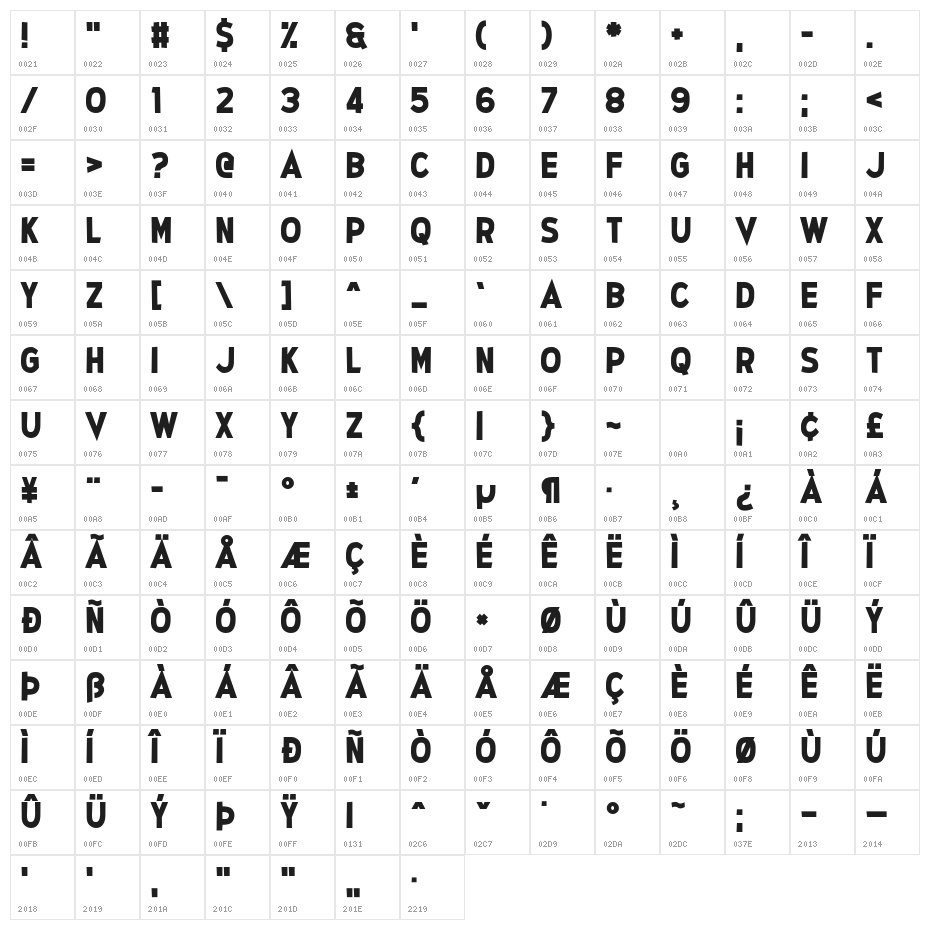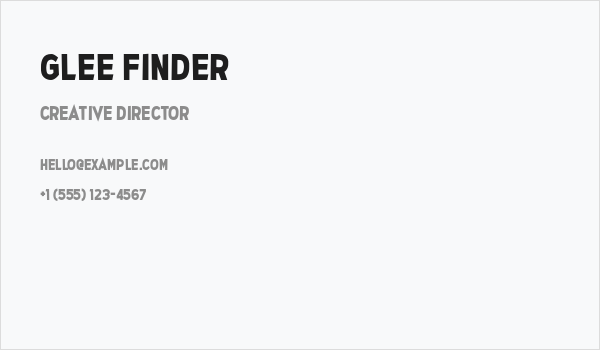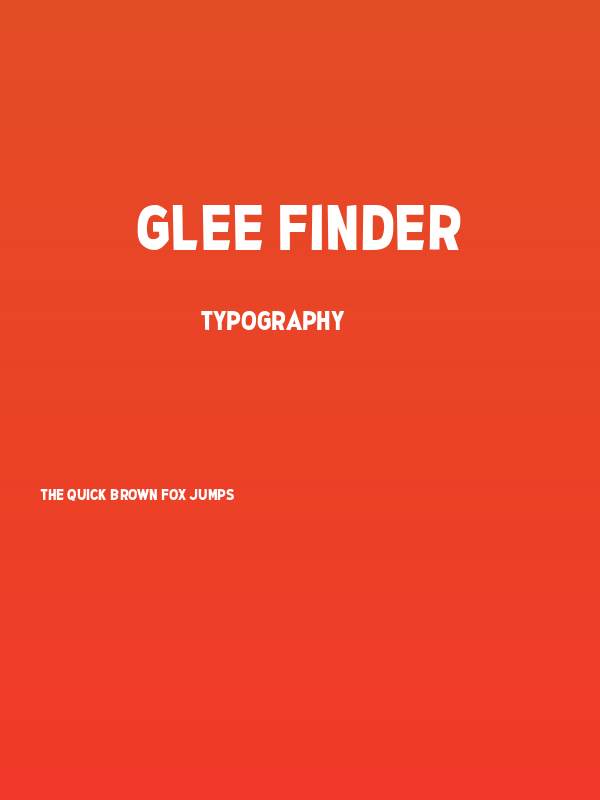
Glee Finder Font
Glee Finder Description
This bold, sans-serif typeface features a strong and commanding presence with its thick, uniform strokes and clean lines. The characters are designed with a modern aesthetic, offering a straightforward and impactful look. The uppercase and lowercase letters maintain a consistent style, ensuring readability and versatility. The numerals are equally bold, making them stand out prominently. Special characters are included, providing a complete set for various design needs. The overall style is contemporary, making it suitable for a wide range of applications.
| Proposed Projects | Ideal for branding, headlines, posters, and advertising materials where a strong visual impact is desired. |